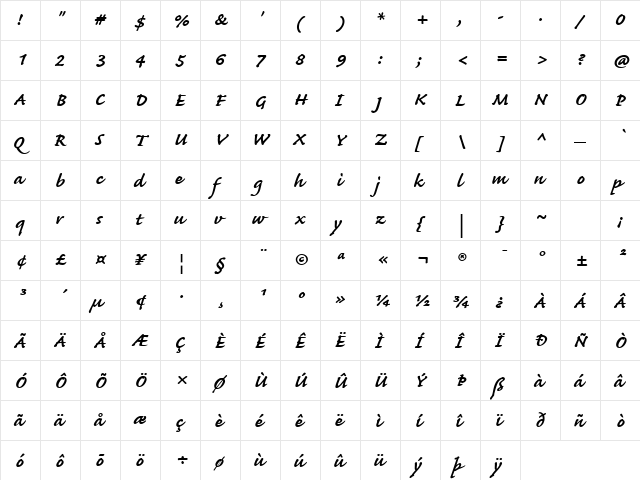
Caflisch Script Pro Regular Bold Font Preview
| Designer | Robert Slimbach |
Design Context for Caflisch Script Pro Regular Typeface
Caflisch Script Pro Regular flows with the natural rhythm of handwritten lettering, making it ideal for designs that call for warmth and personal expression. The heavy weight commands attention and anchors typographic hierarchies.
Font Pairing: Combine Caflisch Script Pro Regular with a simple geometric sans for maximum contrast — the tension between flowing curves and clean structure is a classic typographic pairing.
Pro Tip: Pair Caflisch Script Pro Regular with a clean sans-serif for supporting text. The contrast between fluid script and geometric structure creates an elegant typographic hierarchy.